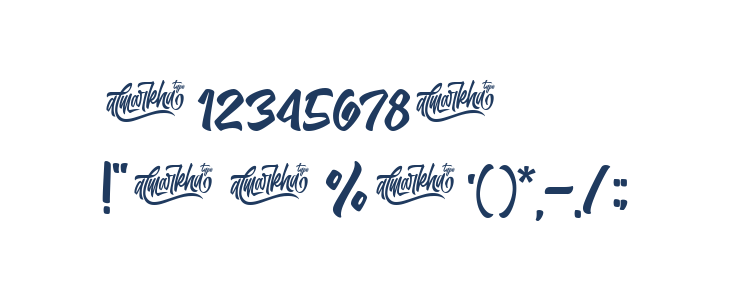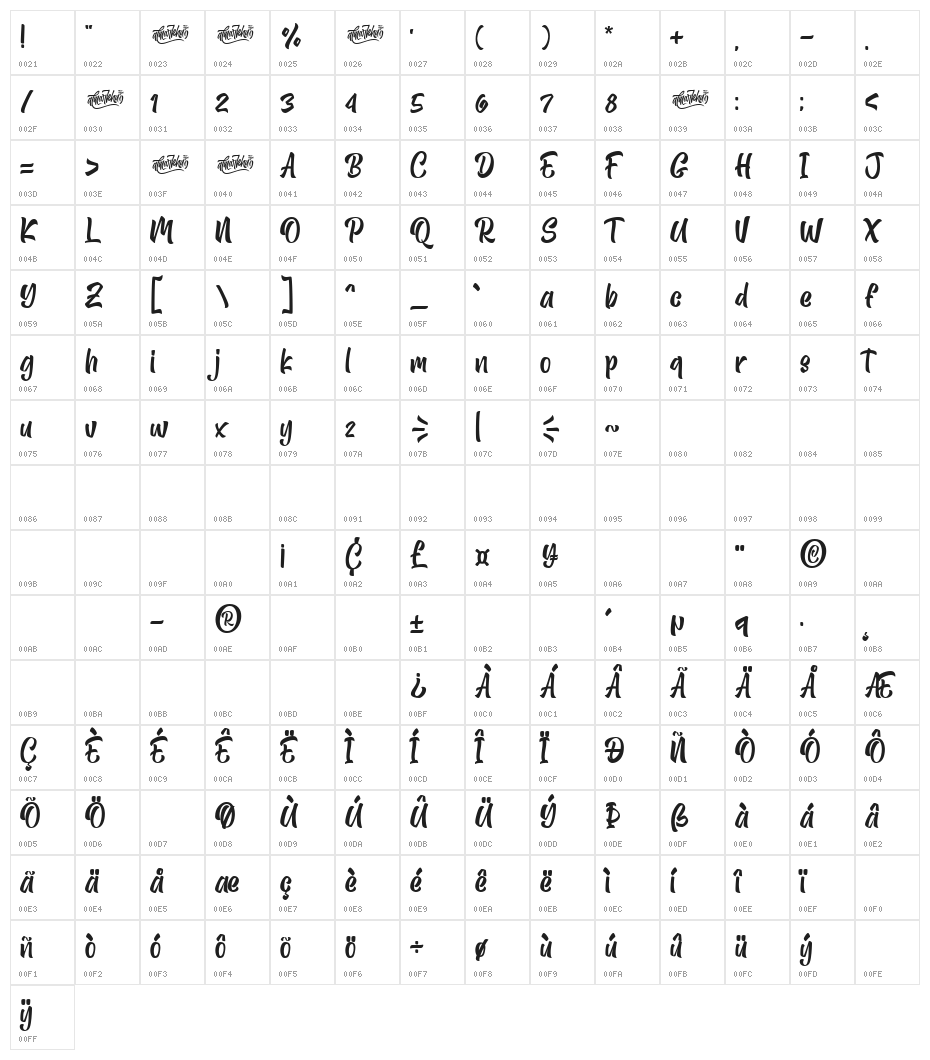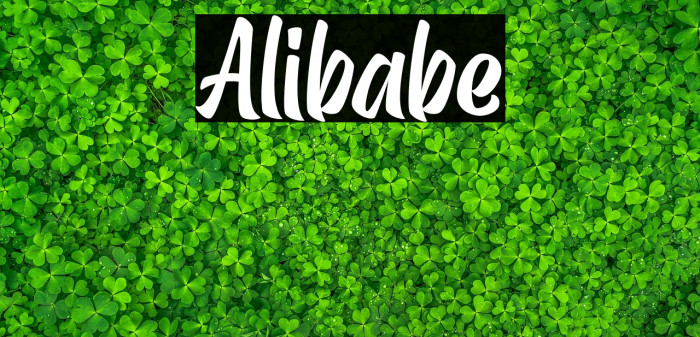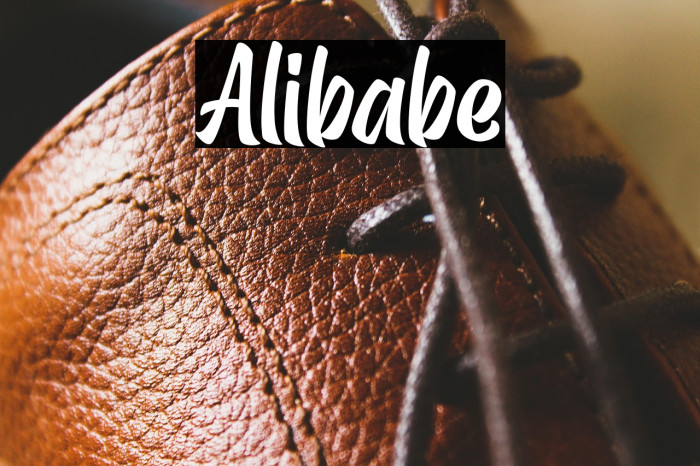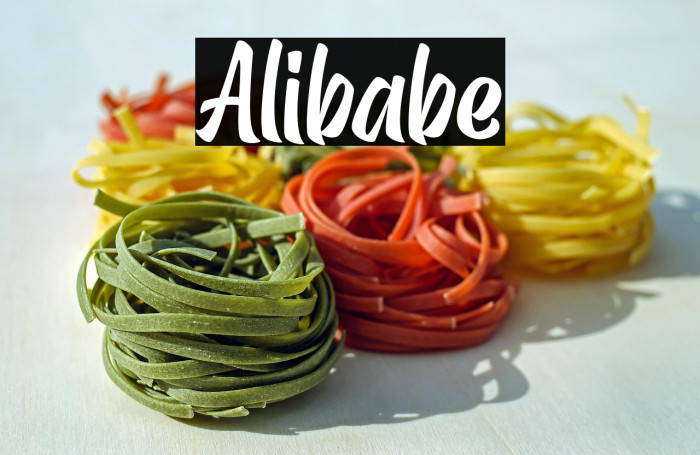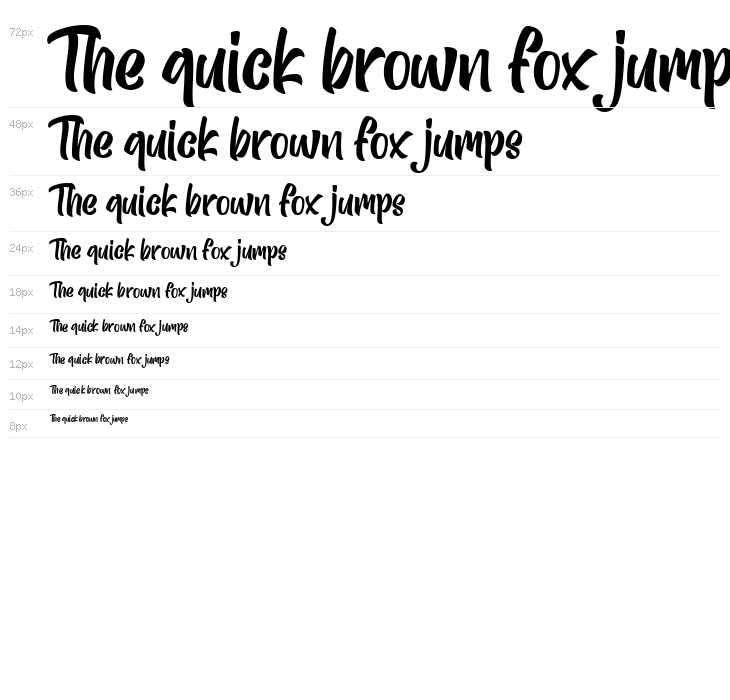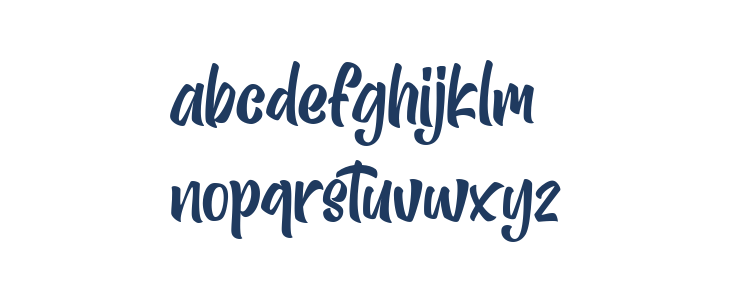
Alibabe Font
Alibabe Description
This font features a bold and expressive script style, characterized by its flowing and dynamic letterforms. The uppercase letters are particularly striking, with exaggerated curves and a sense of movement that suggests a handwritten quality. The lowercase letters maintain this fluidity, offering a cohesive look across the alphabet. Numbers and special characters are designed with the same attention to detail, ensuring consistency throughout. The overall impression is one of energy and creativity, making it suitable for projects that require a personal touch.
| Use Case | Logos, Invitations, Creative projects |
| Proposed Projects | Ideal for branding, logos, invitations, and creative projects that require a personal and artistic touch. |